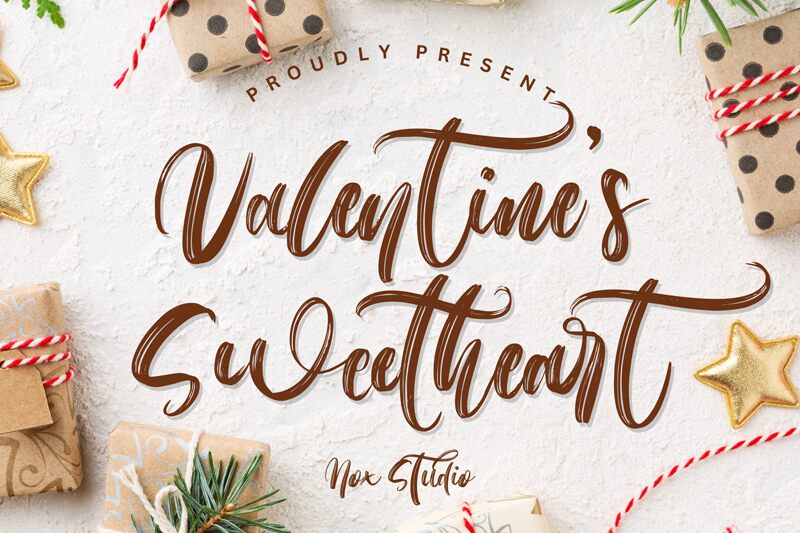
Valentine’s Sweetheart font by Sarif Letter is a free brush font that brings a captivating, flowing style into your personal projects. Romantic and expressive, it captures the aesthetic brilliance of modern calligraphy without being over-the-top. Decorative for sure, with an artistic touch, the typeface delights with a sophisticated vibe. Stylish and inviting, Valentine’s Sweetheart holds enough emotional warmth for contemporary applications in invitations or branding.